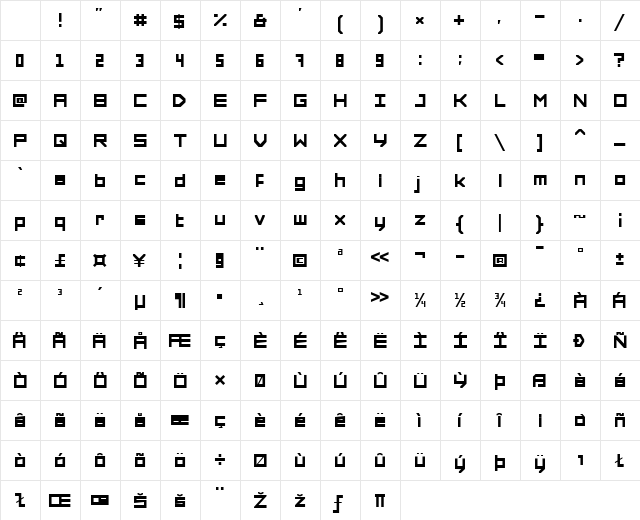
Complete FORCED SQUARE Medium glyph index. Displaying only characters natively supported by FORCED SQUARE Medium font.
FORCED SQUARE brings high-energy athletic personality to the page - its confident, muscular forms are built for impact.
Pro Tip: Use FORCED SQUARE in all-caps headlines where its athletic energy can fully express itself. Pair with a solid, simple sans for supporting text.